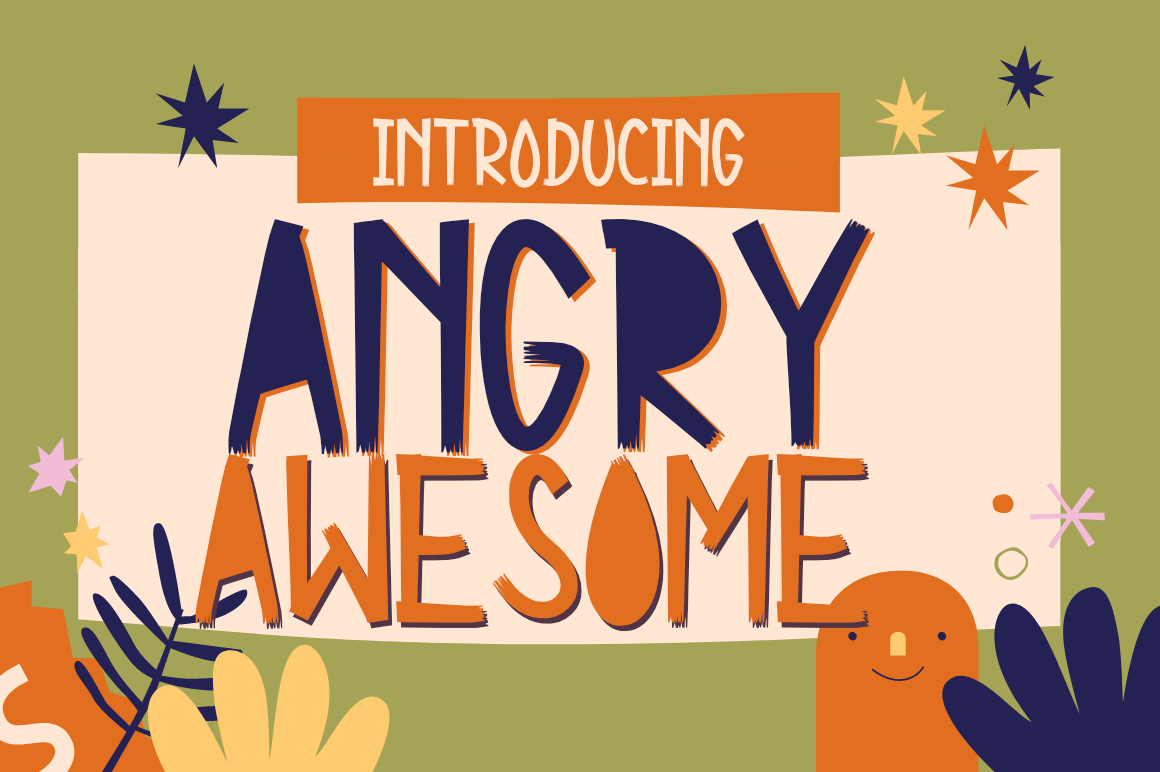
Angry Awesome - Quirky Playful Font
Angry Awesome is a Quirky Playful Display font that will make your designs look unique and fun. It's perfect for labels, quotes, posters, DIY projects, branding, packaging, greeting cards, websites, photography overlays, signs, window art, scrapbooking, tags and so much more!